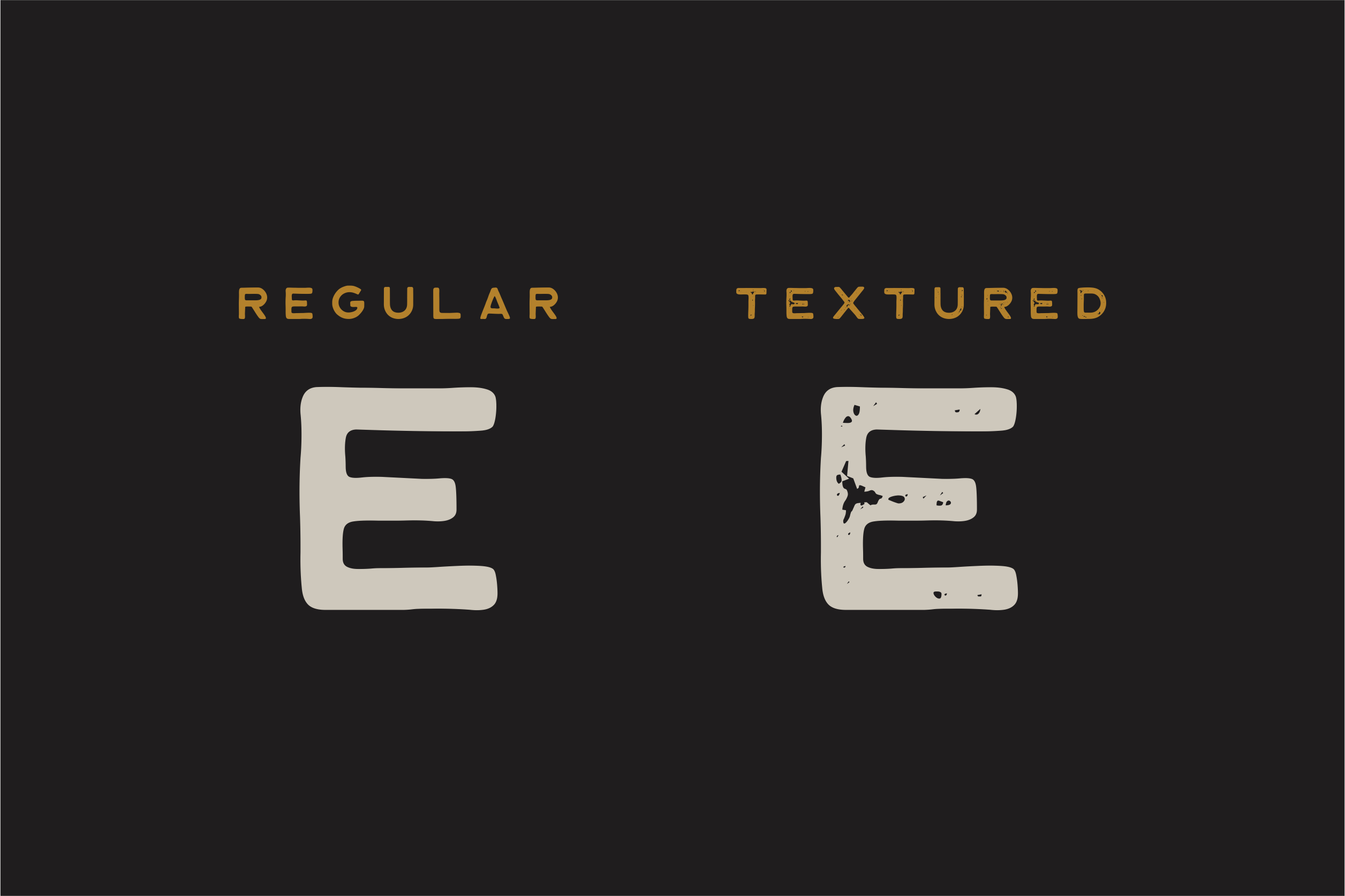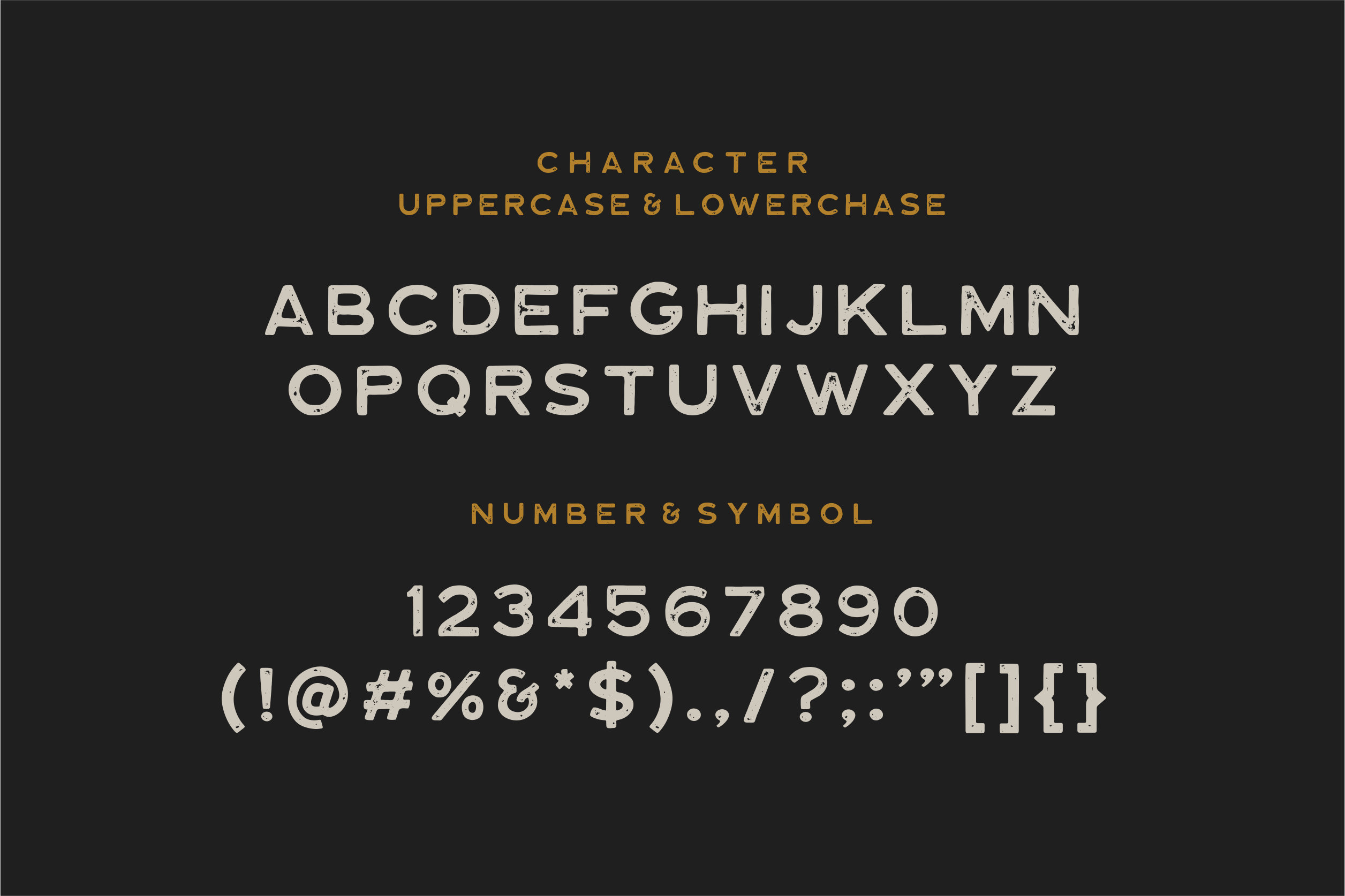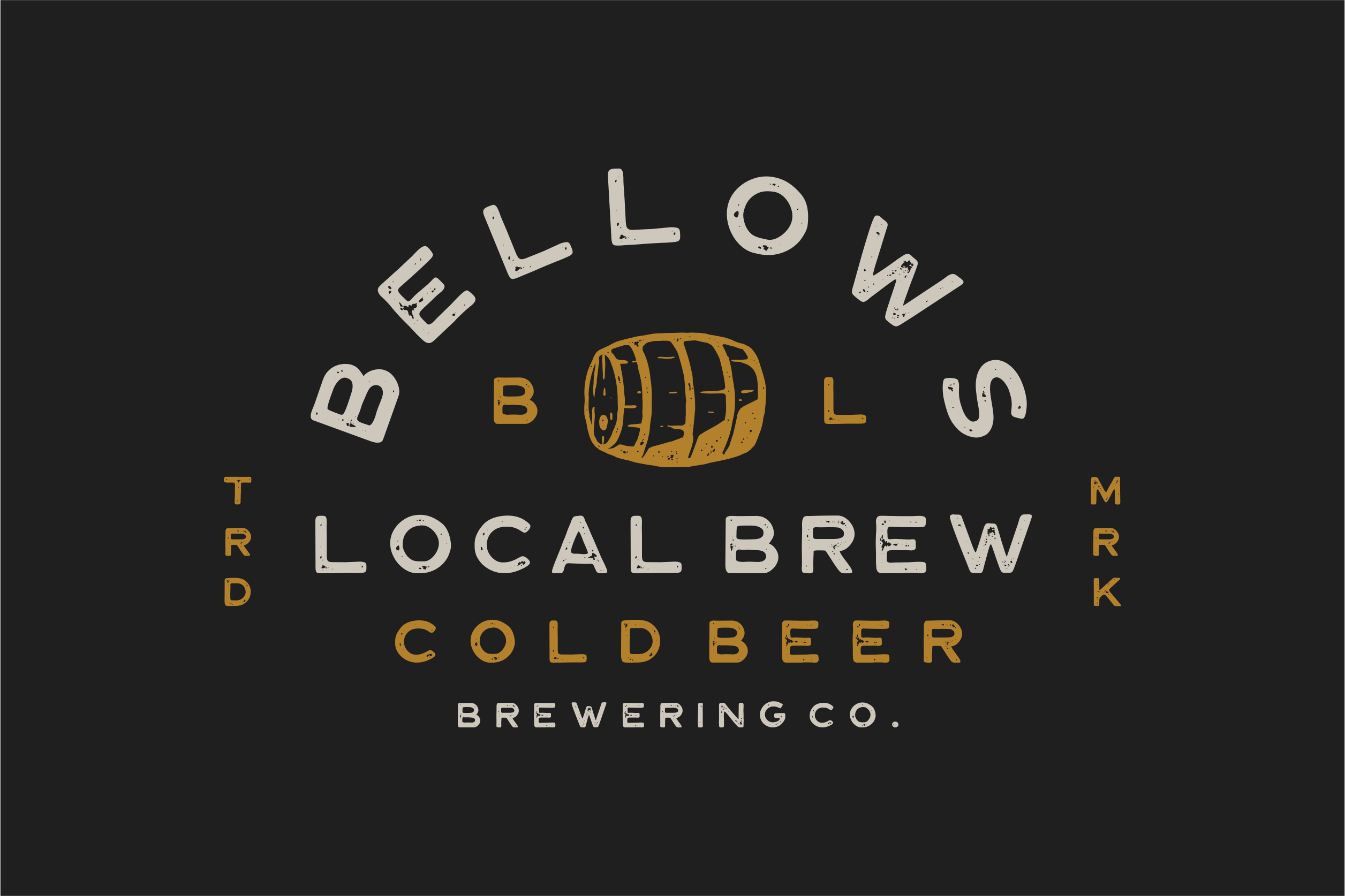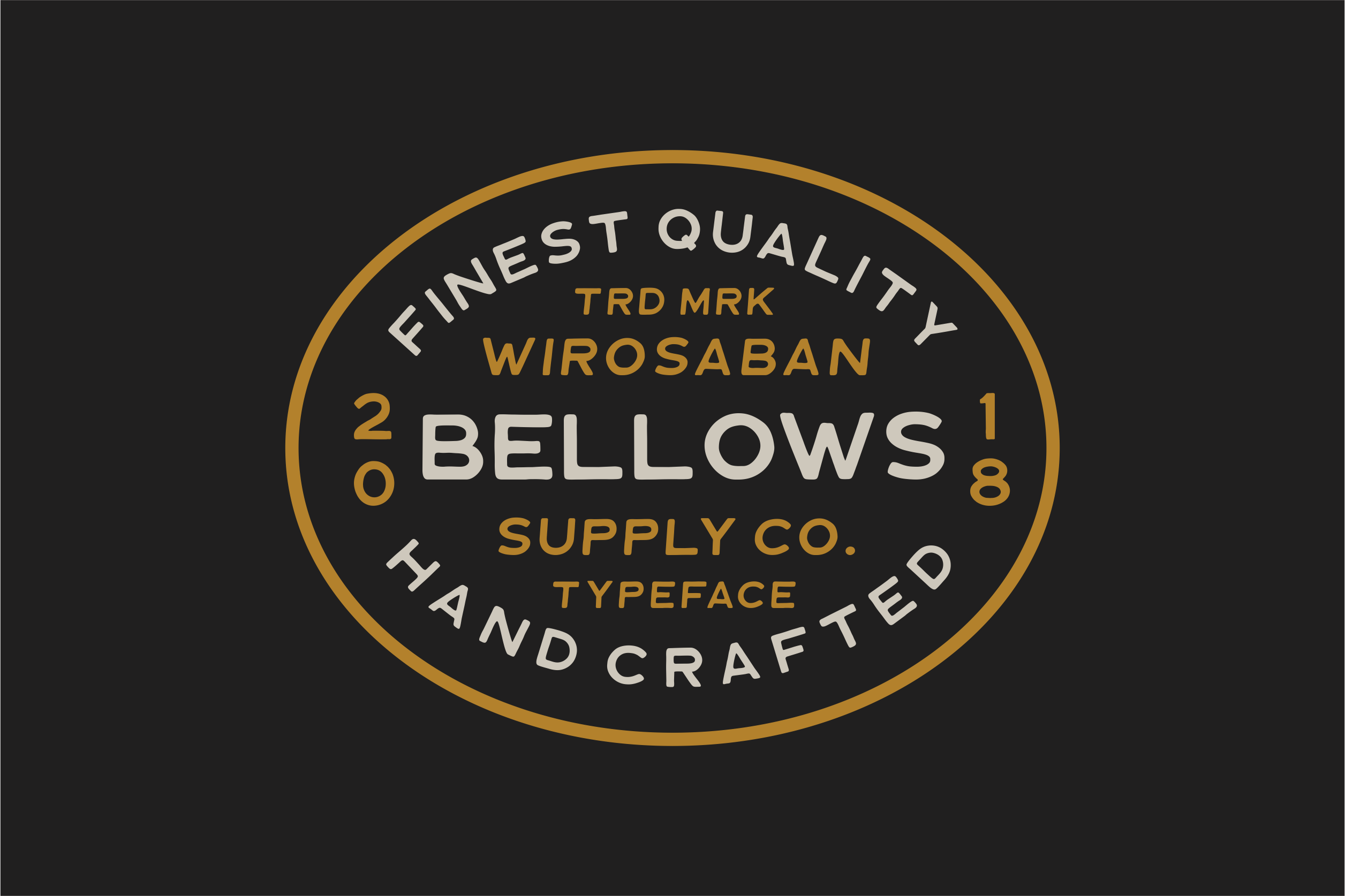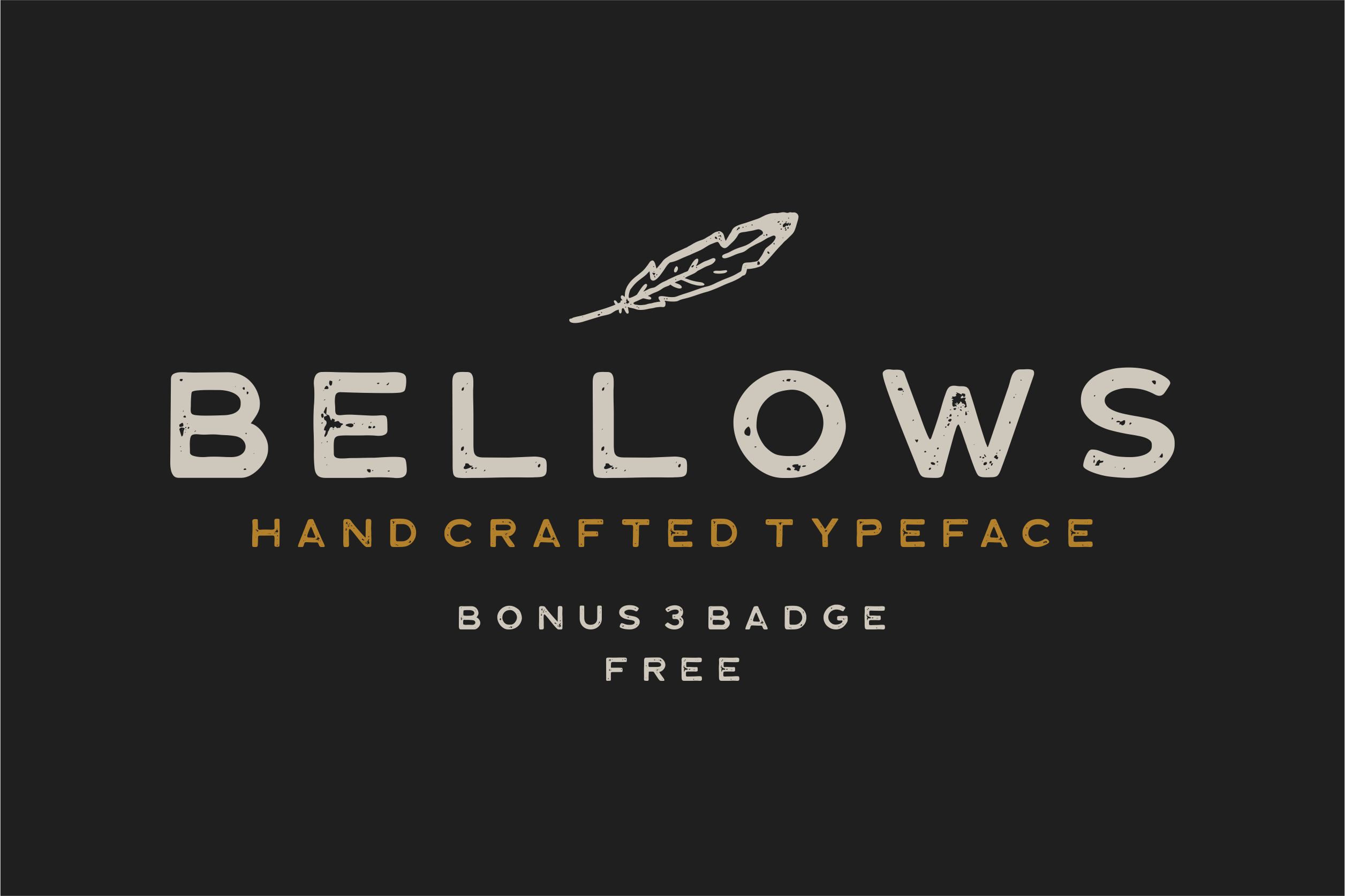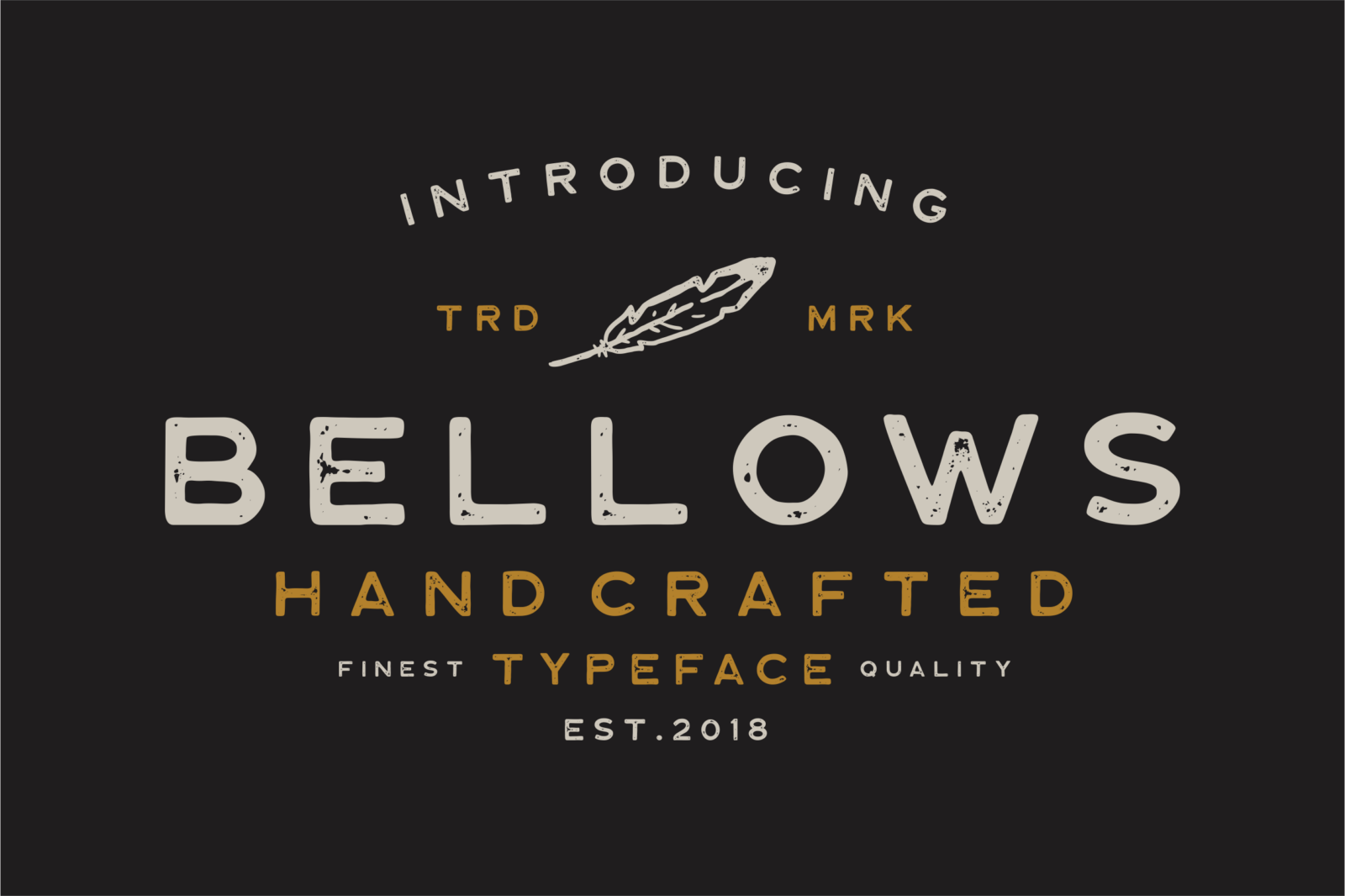
I still remember the frustration of working on a project, hours poured into designing every detail, only to hit a roadblock: finding the right font. My client wanted something vintage, yet modern; something that would make their brand stand out. I scoured the internet, tried countless fonts, but nothing seemed quite right. That was until I stumbled upon Bellows, a stunning all-caps typeface with a subtle vintage style that completely transformed my design.
A First Look at Bellows
Bellows is more than just a font; it’s a statement piece. Created entirely by hand, this beautiful typeface comes in two styles, offering endless possibilities for creative projects. Whether you’re a designer, crafter, or hobbyist, Bellows has the potential to elevate your work.
So, what do I love about Bellows? Here are a few highlights:
- ✨ Unique Vintage Style: Bellows has a distinct vintage flair without feeling too retro or overused.
- ✅ Versatility: With two styles to choose from, you can use Bellows for a wide range of projects, from branding to invitations.
- 💯 Legibility: Despite its stylized nature, Bellows remains highly legible, even at smaller sizes.
Of course, no font is perfect. A few quirks to consider:
- 🤔 All-Caps Limitation: As an all-caps font, Bellows might not be the best choice for body text or longer paragraphs.
- ⚠️ Glyph Limitations: While Bellows comes with a range of glyphs, it might not have every special character you need.
The Story Behind Bellows
The story goes that Bellows was created by a designer who fell in love with vintage typography. Inspired by classic sign-painting and lettering, they set out to create a font that would capture the essence of a bygone era. With Bellows, they aimed to create a typeface that was both nostalgic and modern, versatile and stylish.
| Is Bellows suitable for body text? | While Bellows is stunning for headings and titles, it’s primarily designed as an all-caps font. For longer body text, you might prefer a more traditional serif or sans-serif font. |
| Does Bellows support OpenType features? | Yes, Bellows comes with a range of OpenType features, including stylistic alternates and glyphs, allowing for greater customization. |